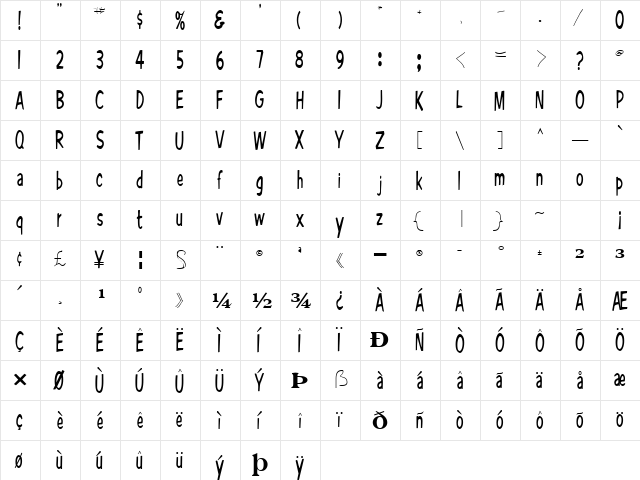
Mo Regular
Design Context for Mo Typeface
Mo takes a measured approach to typography — its balanced proportions and neutral character make it a reliable workhorse for both digital and print work.